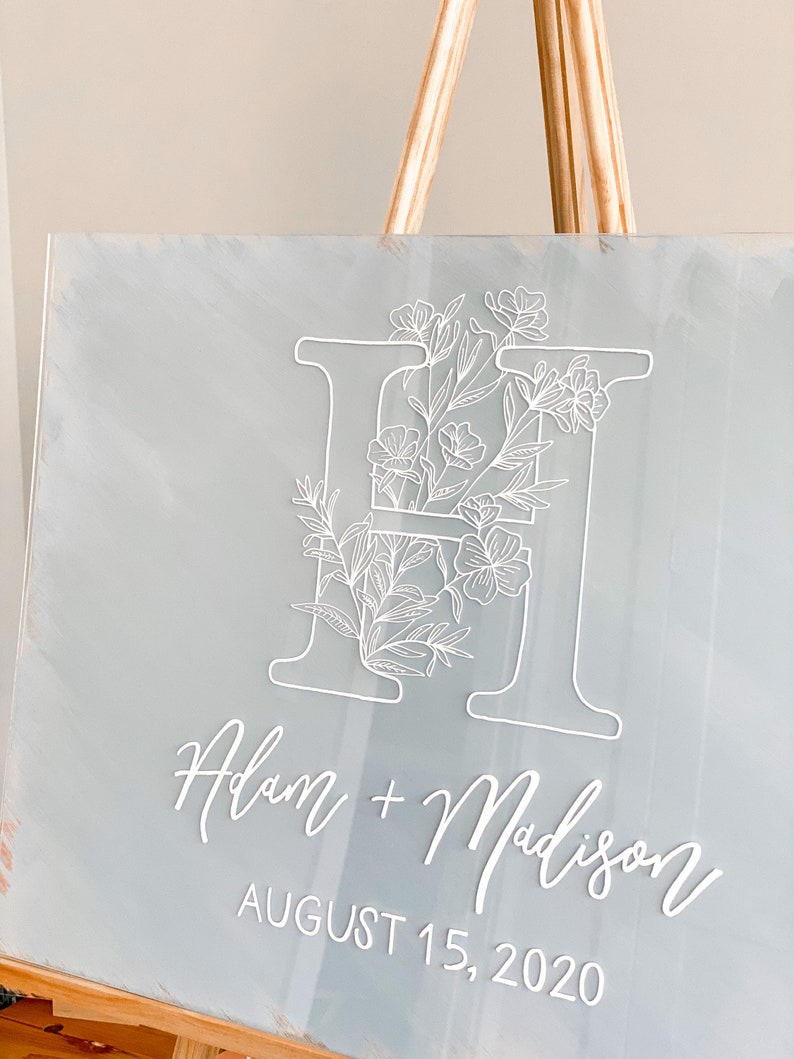
Favorite fonts for wedding stationary
For invites, signs, etc what are your favorites? Any that you feel are overdone or illegible? If you went through Etsy, Zazzle, etc, did you have issues requesting fonts they don't advertise as options?
I made my own save the dates using fonts that I liked. That way I didn't have to worry about if they had a font I liked available and all I had to do was upload the design for printing. Some sites will even mail you a sample print for free like zazzle.com
We did our STDs through Minted and were not disappointed! I think fonts depend on the couple and what their styles are. We went for this design for our STDs because it was minimal and delicate!
I think certain cursive/handwritten fonts can look a little messy and illegible. It's always important to get outside feedback when choosing fonts because you have an unbiased opinion about the font, and whether it is illegible or not!
I do think my favorite fonts are the ones that resemble the ones on our STDs! Minimal, simple, not too flashy. This wedding sign is the design we're wanting for ours, and I think the fonts are perfect!
We used VistaPrint for our Save the dates and Magnetstreet for our invitations. We didn't have a problem with the fonts on either
I did as violetstorme did, we printed our own and used our own fonts... no one had exactly what i wanted so i had to make my own.
We used magnetstreet for save the dates and shutterfly for invitations and both had a lot of font customization available.